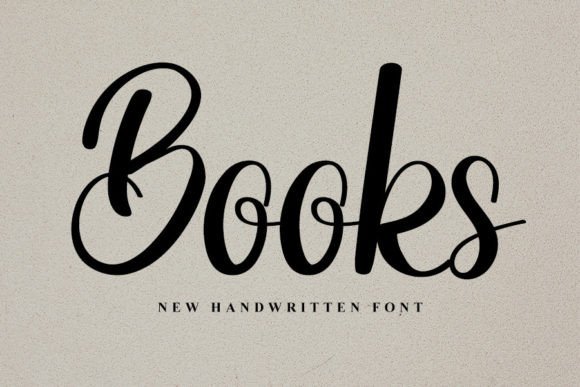
The Magic of Books Font: Elevate Your Designs with Elegance
Have you ever been in the middle of a design project, and suddenly, you’re stuck on finding the perfect font? I recall a particular evening when I was working on a branding project for a luxury client, and my usual font stash just wasn’t cutting it. The client wanted something elegant, timeless, and distinctive. That’s when I stumbled upon the Books Font – a beautiful handwritten font that added an elegant touch to my designs.
- ✅ Elegant and Timeless Style: Books Font boasts an incredibly distinct and timeless style that can elevate any design project.
- ✅ Versatility: Its neat and beautiful handwritten aesthetic makes it perfect for a wide range of projects, from luxury branding to wedding invitations.
- ✅ Easy to Read: The font’s clarity ensures that your message is conveyed effectively, making it ideal for both headings and body text.
- ⚠️ Limited Use in Body Text: While Books Font is stunning for headings and titles, it might not be the best choice for lengthy body text due to its elegant but somewhat ornate nature.
- ⚠️ Requires Attention to Kerning: As with many elegant fonts, you might need to adjust kerning for optimal results, especially in larger text sizes.
The Story Behind Books Font: Designer Inspiration
While the specific origins of Books Font are shrouded in mystery, it’s easy to imagine a designer with a passion for calligraphy and handwritten scripts creating such a beautiful font. Perhaps they wanted to craft a font that felt both nostalgic and modern, perfect for designers and crafters looking to add a touch of elegance to their projects.
Q: Is Books Font suitable for body text?
A: While Books Font is beautiful, it’s more suited for headings and titles. Its elegance might make lengthy body text harder to read.